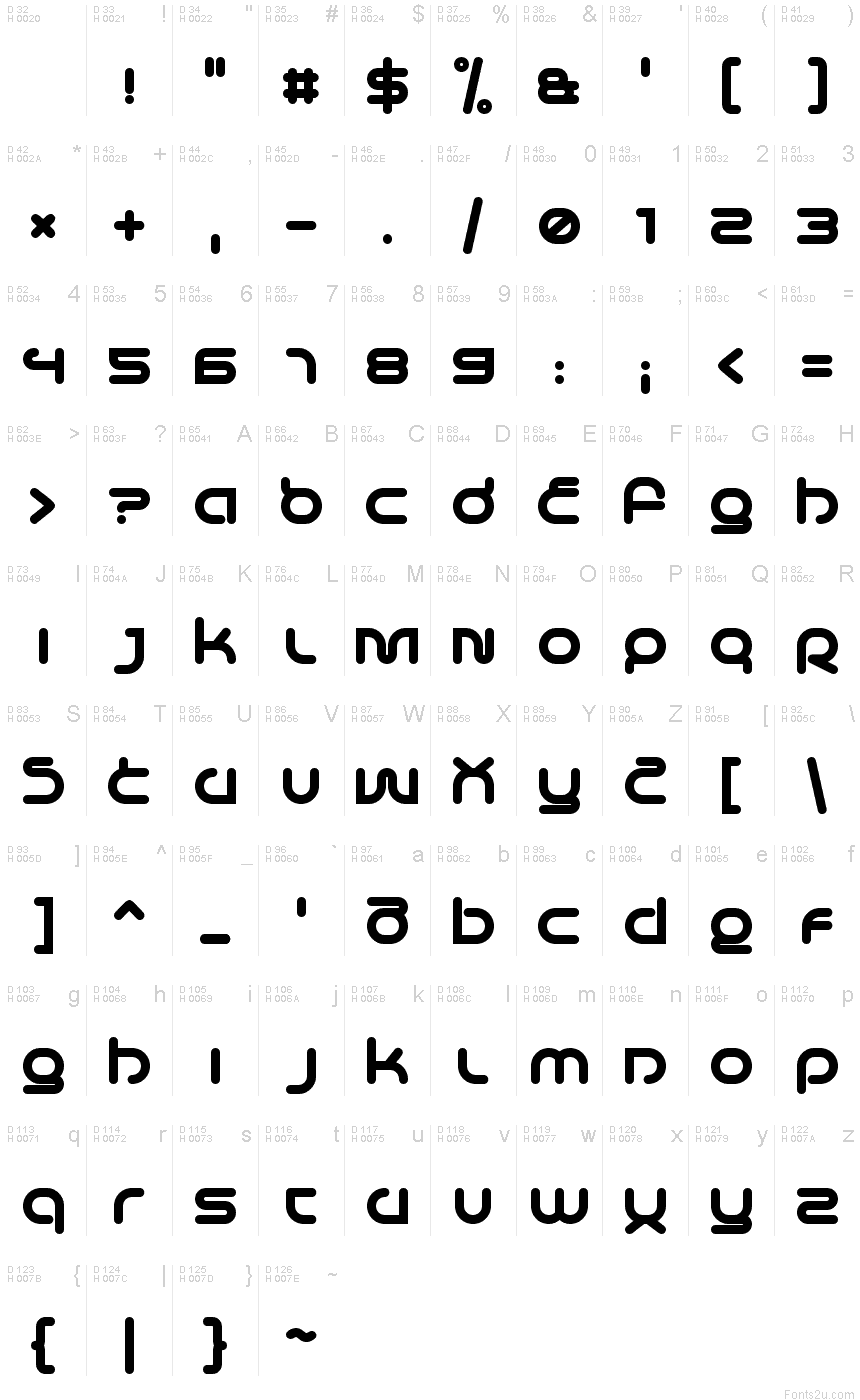
Life in Space Bold
Life in Space Bold by dustBUST Fonts, is a free groovy display font with a rounded, capsule-like silhouette and soft corners throughout. Its forms stay smooth and oversized, and the open loop shapes and flat-ended bars give the family a poster-sized profile.
Life in Space Bold suits logo marks, album art, event flyers, retro packaging, and short headline treatments where those rounded shapes can stay large and uncluttered. It brings enough character for signage, cover text, promotional badges, and sticker art without extra ornament, so the wordmark carries the layout on its own.